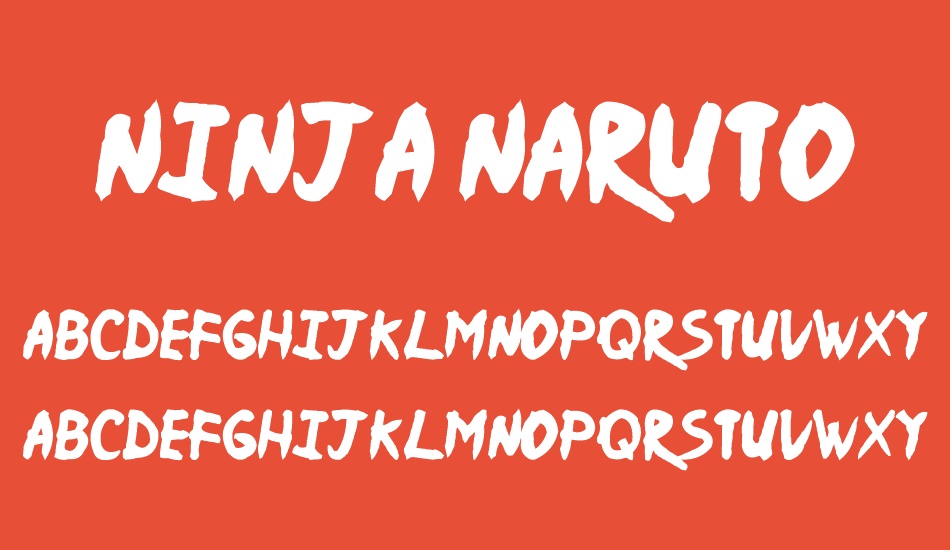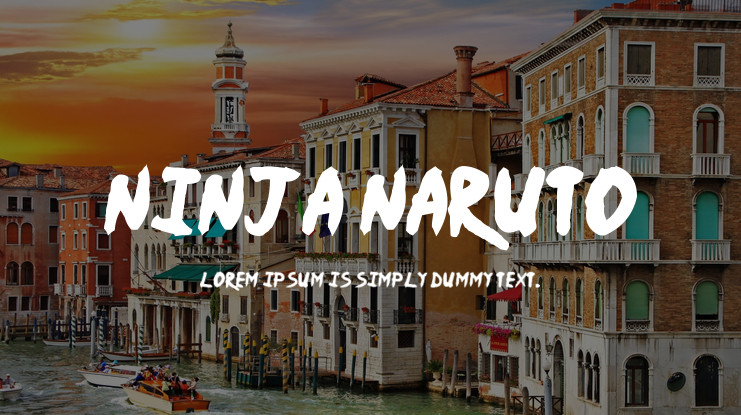
Ninja Naruto Font
Ninja Naruto Font is the main typeface of google docs. This is famous for its tech generator and also for its Japanese typeface and it is also known as boruto font. It modified into commissioned the usage of adobe fonts for its internet font library, this moreover techniques that the handiest’s fashion designer fonts are to be had freed from fee. Each unique selfie font is a totally precise condensed font that abilities an antique layout.
The font is likewise available in a couple of weights, and it‚Äôs exquisite for designing logos, badges, and labels. Ninja Naruto Font Free The typeface moreover comes with exchange characters and in a person’s weight as properly. casino font is one of the maximum unique fonts on our listing. Neon lighting fixtures regular font is a layout derived from numerous antique faces from the English layout making facility.
But, the eveleth‚Ñ¢ font is a sans-serif endorsed with the beneficial resource of the actual typefaces.